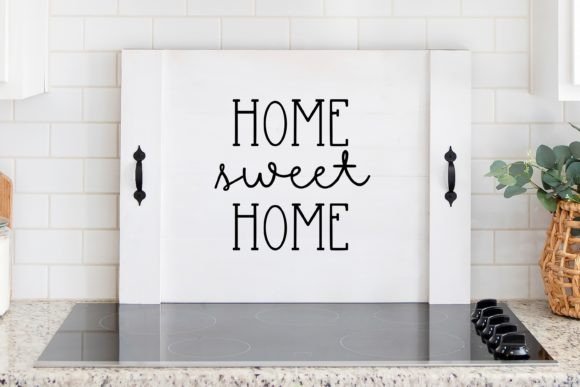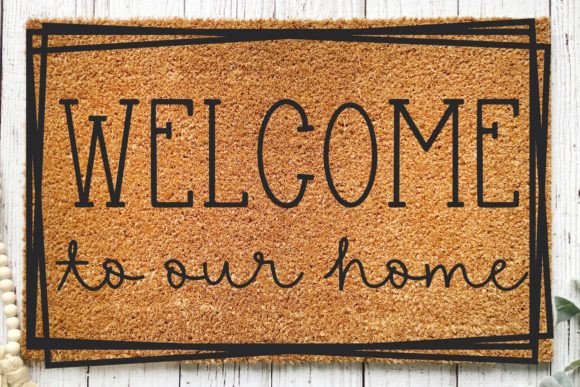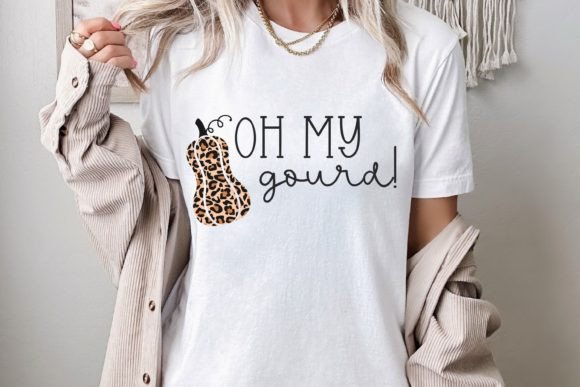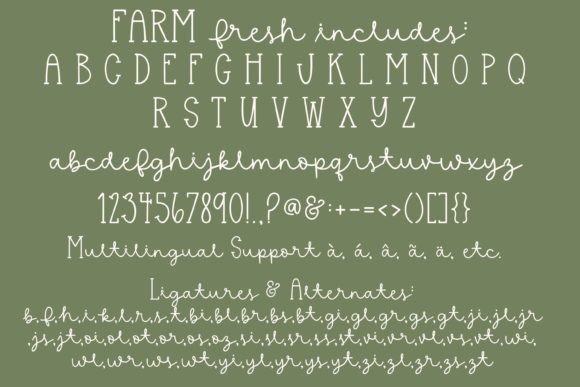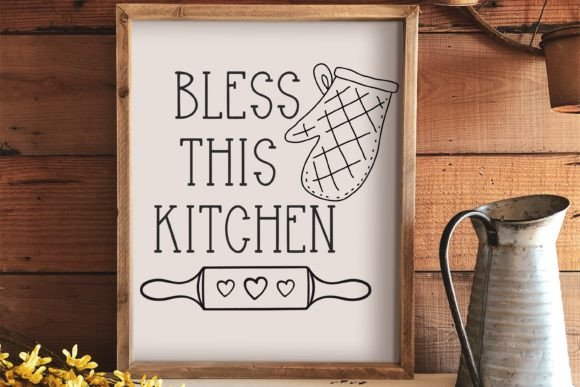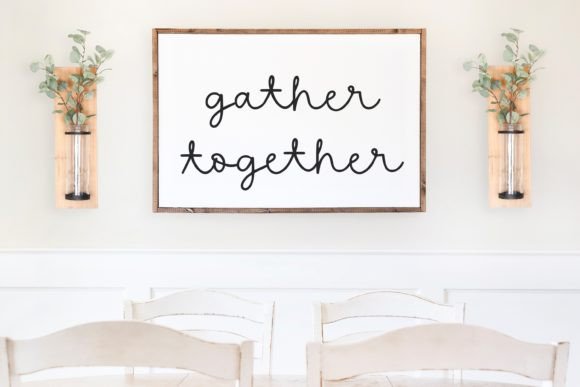
Introducing Farm Fresh: The Ultimate Farmhouse-Style Script Font for Creative Projects
Have you ever been in the middle of a design project, and suddenly, you’re stuck on finding the perfect font? I recall a recent experience where I was working on a client’s wedding invitation design, and I just couldn’t find a font that captured the rustic charm and elegance I was looking for. That’s when I discovered Farm Fresh, our beautiful farmhouse-style script font that has become a game-changer for my designs.
The Birth of Farm Fresh
Farm Fresh was crafted with love and care, inspired by the rolling hills, lush greenery, and rustic simplicity of farm life. Our team aimed to create a font that would bring a touch of warmth and personality to any design project. Whether you’re a Cricut enthusiast, a designer, or simply a creative hobbyist, Farm Fresh is the perfect addition to your font collection.
What I Love About Farm Fresh
- ✨ Elegant curves and smooth strokes that give it a sophisticated, yet rustic feel
- 💫 A wide range of OpenType features, including glyphs and stylistic alternates, to add a personal touch to your designs
- 🎨 Versatility: use it for invitations, greeting cards, crafts, and so much more!
Honest Review: The Not-So-Perfect Farm Fresh
While Farm Fresh is an amazing font, there are a few quirks to be aware of:
- 🤔 Some users might find the font a bit too ornate for very formal or corporate designs
- ⚠️ As with any script font, it may not be the best choice for very long blocks of text
Farm Fresh is more than just a font – it’s a design solution that can elevate your creative projects to the next level. With its elegant curves, smooth strokes, and rustic charm, this beautiful farmhouse-style script font is sure to become a favorite in your font collection.